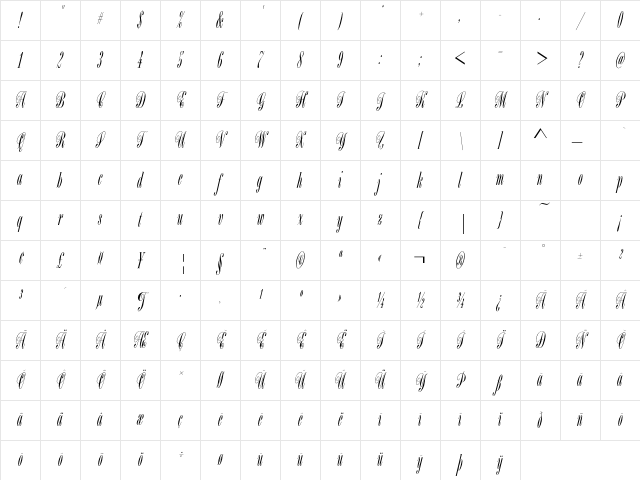
BordeauxICG Script
Style: Script
Design Context for BordeauxICG
BordeauxICG flows with the natural rhythm of handwritten lettering, making it ideal for designs that call for warmth and personal expression.
Font Pairing: Combine BordeauxICG with a simple geometric sans for maximum contrast - the tension between flowing curves and clean structure is a classic typographic pairing.
Pro Tip: Use BordeauxICG for short runs of text - names, titles, or taglines. Extended body copy in script faces tires the eye quickly.